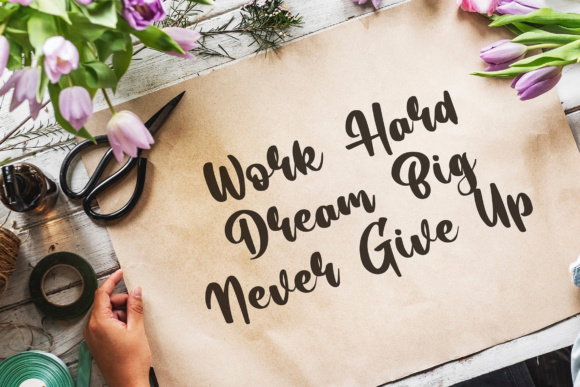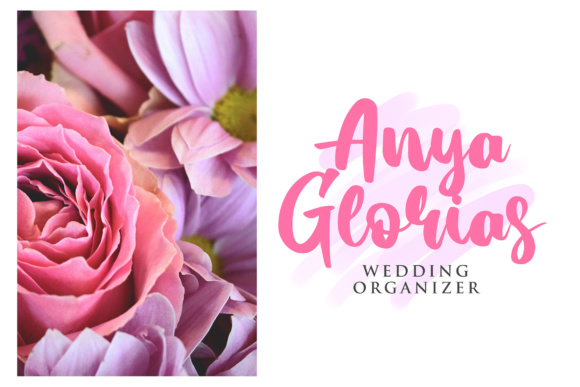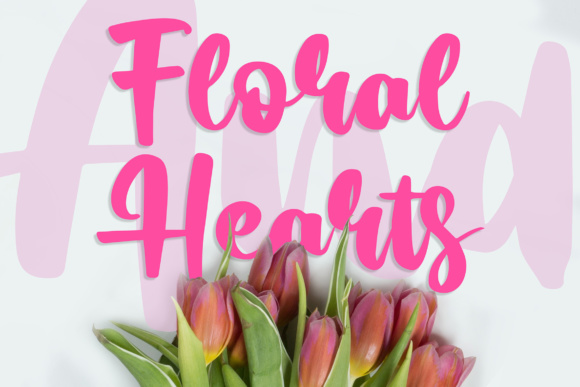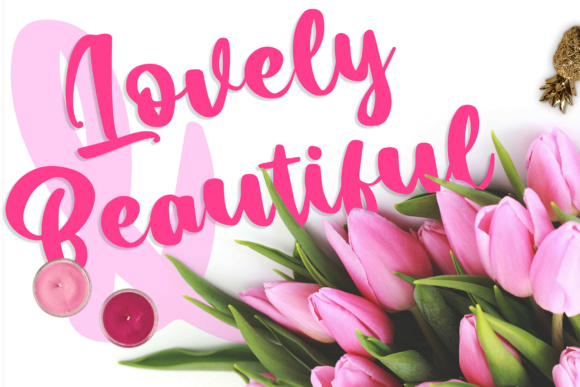
Chomolatte Font
About Chomolatte Font
The Chomolatte is a modern script font. It has thick, yet elegant letters which will give your design a striking look.